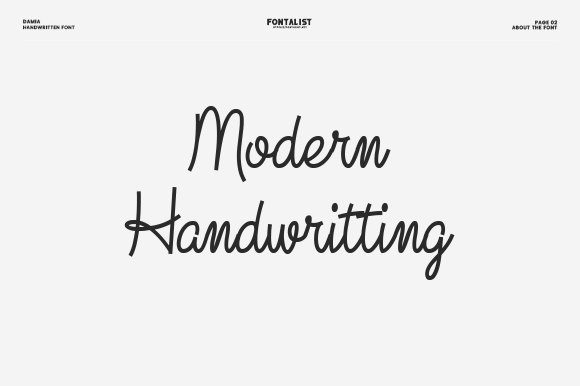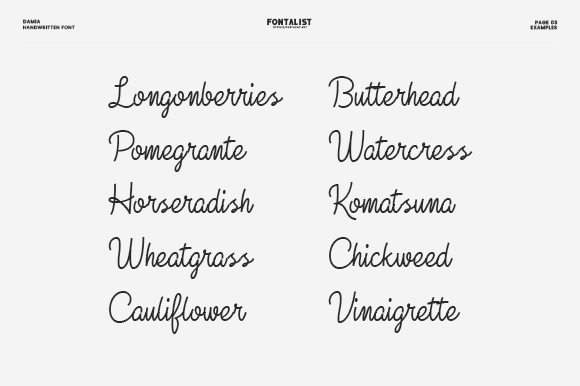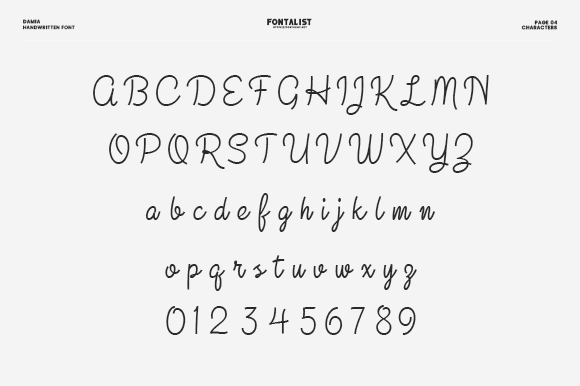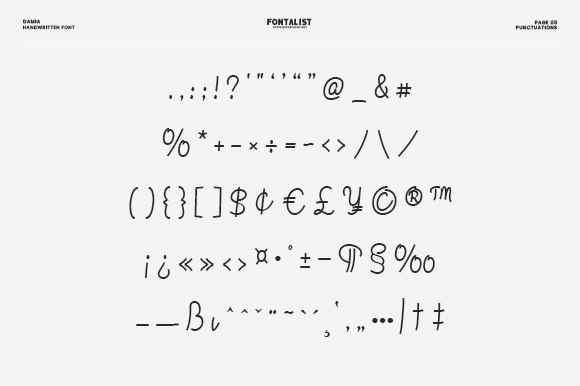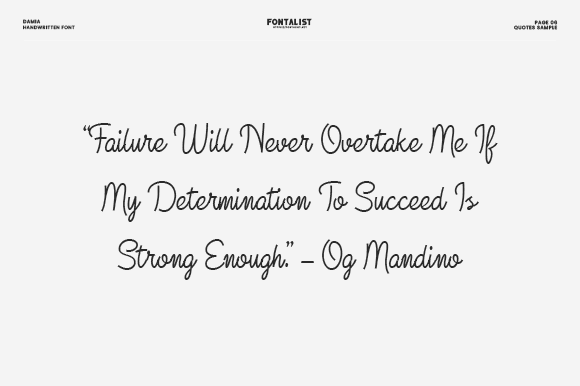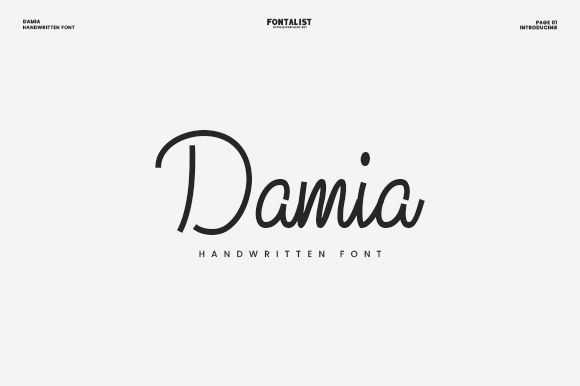
Introducing Damia Font: The Modern and Simple Handwriting Font for Creative Projects
In the world of typography, a good font can make all the difference in the success of a creative project. Whether you’re a designer, crafty DIY enthusiast, or social media influencer, finding the right font can elevate your work and make it stand out from the crowd. That’s where Damia Font comes in – a modern and simple handwriting font that’s perfect for a wide range of applications.
What is Damia Font?
Damia Font is a beautiful, modern handwriting font that’s designed to be both elegant and approachable. Its simple, yet stylish design makes it an excellent choice for a variety of creative projects, from titles and book covers to web designs, magazine headlines, movie posters, and social media ads.
Key Features of Damia Font
So, what makes Damia Font so special? Here are some of its key features:
- Modern and Simple Design: Damia Font boasts a clean and contemporary design that’s perfect for creating a lasting impression.
- Handwriting Style: Its handwriting style gives it a personal and friendly touch, making it ideal for projects that require a more approachable tone.
- Versatile: Damia Font is incredibly versatile and can be used for a wide range of applications, from digital designs to print materials.
- Easily Readable: The font is designed to be easily readable, even at smaller sizes, making it perfect for body text and captions.
Use Cases for Damia Font
Damia Font is an incredibly versatile font that can be used for a wide range of creative projects, including:
- Titles and Book Covers: Create stunning titles and book covers that grab attention and make a lasting impression.
- Web Design: Use Damia Font to create beautiful website headers, titles, and captions that elevate your online presence.
- Magazine Headlines: Make your magazine headlines stand out with Damia Font’s modern and stylish design.
- Movie Posters: Create eye-catching movie posters that showcase the title and main characters in style.
- Social Media Ads: Use Damia Font to create engaging social media ads that grab attention and drive engagement.
Why Choose Damia Font?
So, why should you choose Damia Font for your next creative project? Here are just a few reasons:
- Unique and Creative: Damia Font offers a unique and creative way to express yourself and showcase your brand.
- Easily Customizable: The font is easily customizable, allowing you to adjust the size, color, and style to suit your needs.
- Time-Saving: With Damia Font, you can save time and effort by using a pre-designed font that’s ready to use.
- High-Quality: Damia Font is a high-quality font that’s designed to deliver exceptional results.
Tips for Using Damia Font
Here are some tips for getting the most out of Damia Font:
- Experiment with Different Sizes: Try out different font sizes to see what works best for your project.
- Play with Color: Experiment with different colors to find the perfect match for your brand or design.
- Mix and Match: Don’t be afraid to mix and match Damia Font with other fonts to create a unique look.
- Pay Attention to Kerning: Make sure to adjust the kerning to ensure that the font looks its best.
In conclusion, Damia Font is a modern and simple handwriting font that’s perfect for a wide range of creative projects. Its unique design, versatility, and readability make it an excellent choice for designers, crafters, and social media influencers. With its ease of use and customization options, Damia Font is sure to become a go-to font for anyone looking to elevate their creative projects.